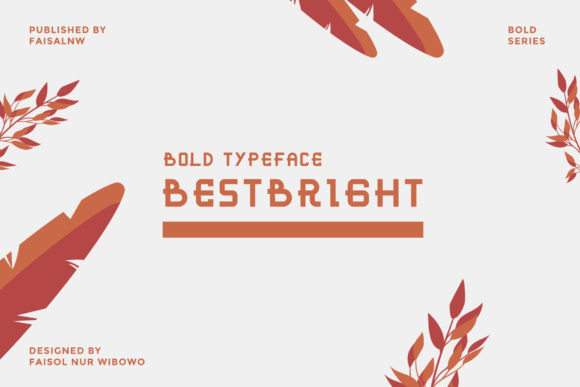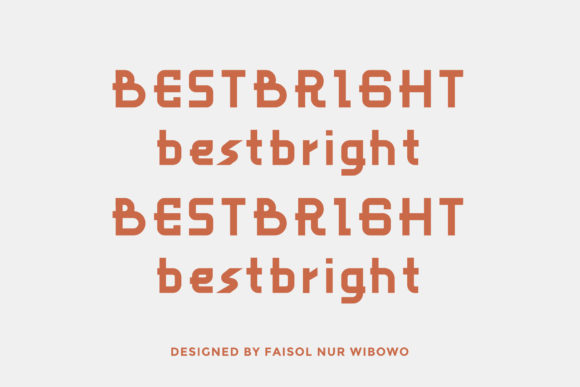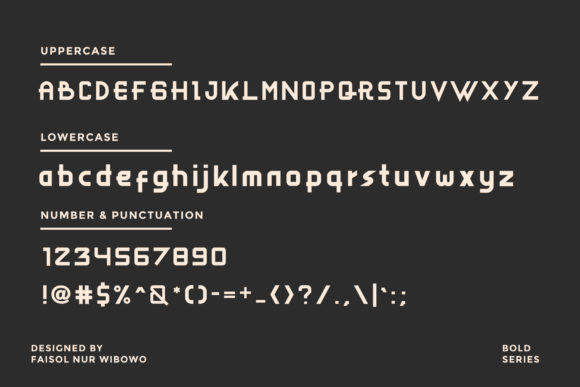
Introducing Bestbright Font: Elevate Your Designs with a Cool, Vintage Flair
In the world of design, fonts play a crucial role in conveying the message and aesthetic of a project. Whether you’re working on a branding campaign, a website, or a craft project, the right font can make all the difference. If you’re on the hunt for a font that combines a vintage vibe with a modern twist, look no further than Bestbright Font. This cool, vintage-styled, and uniquely designed display font is set to become an indispensable asset in your font library.
The Unique Charm of Bestbright Font
Bestbright Font stands out from the crowd with its distinctive vintage flair. Its design is reminiscent of classic display fonts from the early 20th century, but with a modern touch that makes it versatile and fresh. The font features elegant lines, unique letterforms, and a stylish charm that can instantly elevate any design project. Whether you’re working on a logo, a poster, a website header, or any other design that requires a standout font, Bestbright is up to the task.
Versatility Across Topics
One of the key benefits of Bestbright Font is its versatility. No matter the topic or industry you’re working in, this font can adapt and shine. From fashion and beauty to technology and education, Bestbright’s unique style can add a touch of sophistication and personality to your designs. It’s perfect for designers who like to experiment with different themes and want a font that can keep up with their creative endeavors.
Why Bestbright Font is a Must-Have for Designers and Crafters
For designers and crafters, having a font that can do it all is a dream come true. Here are a few reasons why Bestbright Font should be at the top of your wishlist:
- Unique Style: Bestbright offers a fresh take on vintage design, making your projects stand out in a crowded digital landscape.
- Versatility: Its adaptability across various themes and industries makes it a valuable addition to any font library.
- High-Quality: As a display font, Bestbright is crafted with high-quality design principles in mind, ensuring it looks great in both digital and print formats.
How to Use Bestbright Font in Your Projects
Integrating Bestbright Font into your projects is straightforward. Here are a few tips to get you started:
- Pair it with Neutrals: Bestbright’s bold style works well with neutral fonts that provide a clean contrast, ensuring your message is clear and visually appealing.
- Experiment with Sizes: As a display font, Bestbright shines in larger sizes, but don’t be afraid to experiment with different sizes to create visual hierarchy and interest.
- Play with Colors: While Bestbright looks great in classic black and white, feel free to experiment with colors that match your brand or project’s aesthetic.
Bestbright Font is more than just a font; it’s a design asset that can transform your projects with its cool, vintage-styled charm. Its versatility, unique design, and adaptability make it an essential tool for designers and crafters looking to add a touch of elegance and personality to their work. Whether you’re creating a brand identity, a website, or a craft project, Bestbright Font is sure to elevate your designs to the next level.